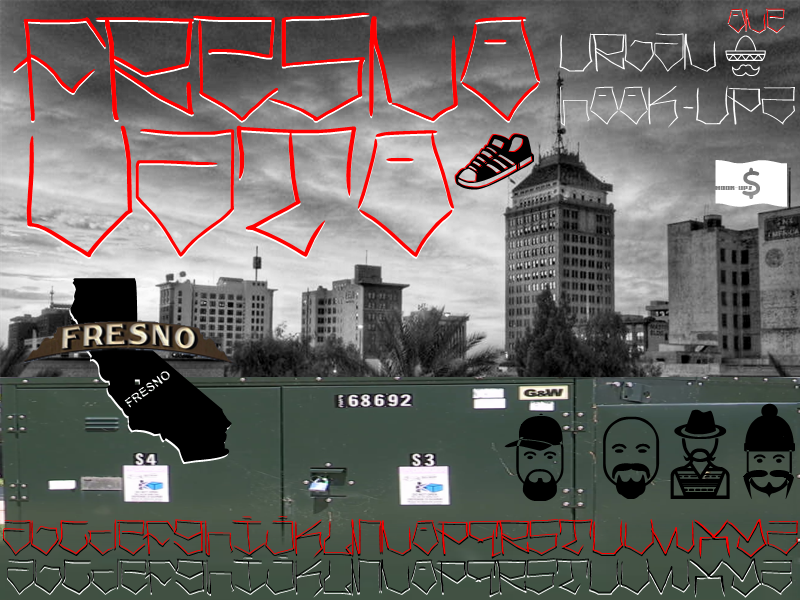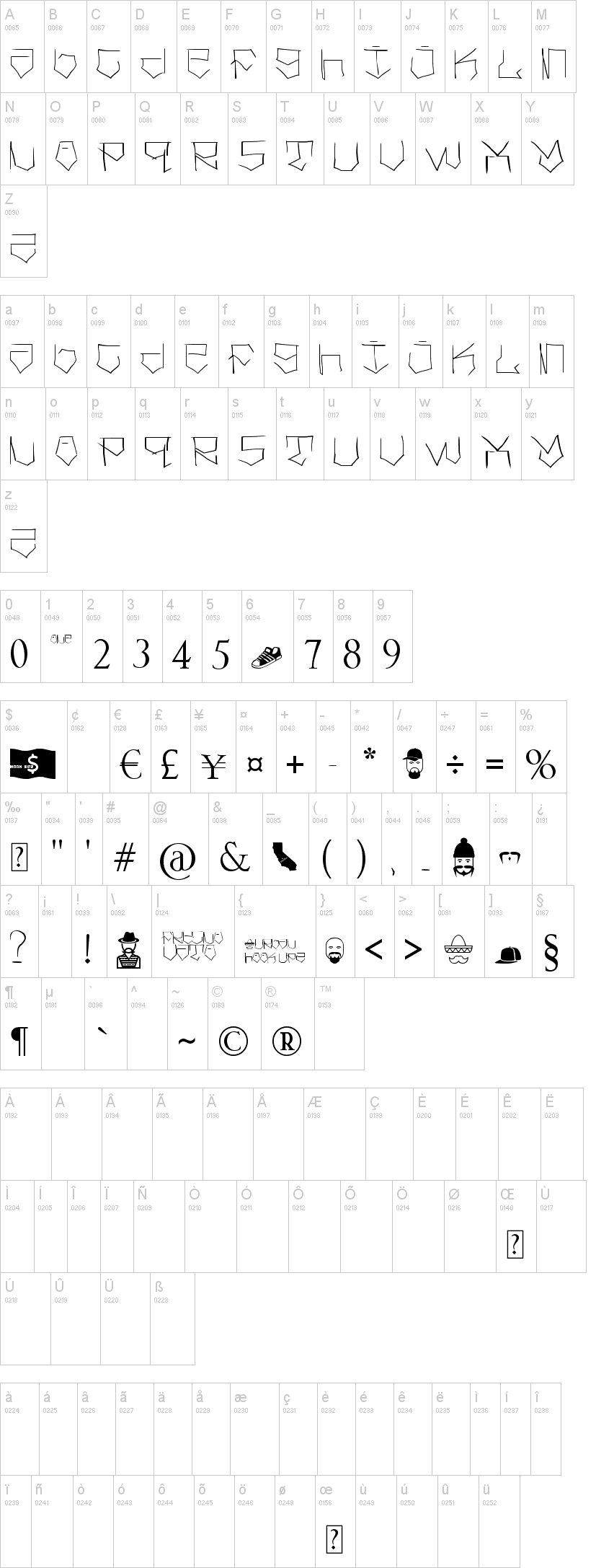
Note of the authorThis is a, "Fresno Vato Style", Influenced by the Mexicano Tag style of Central Califa. Brought to you by Creator Urban Hook-upz, just another Vato From Fresno, Hookin' You Up Homie!